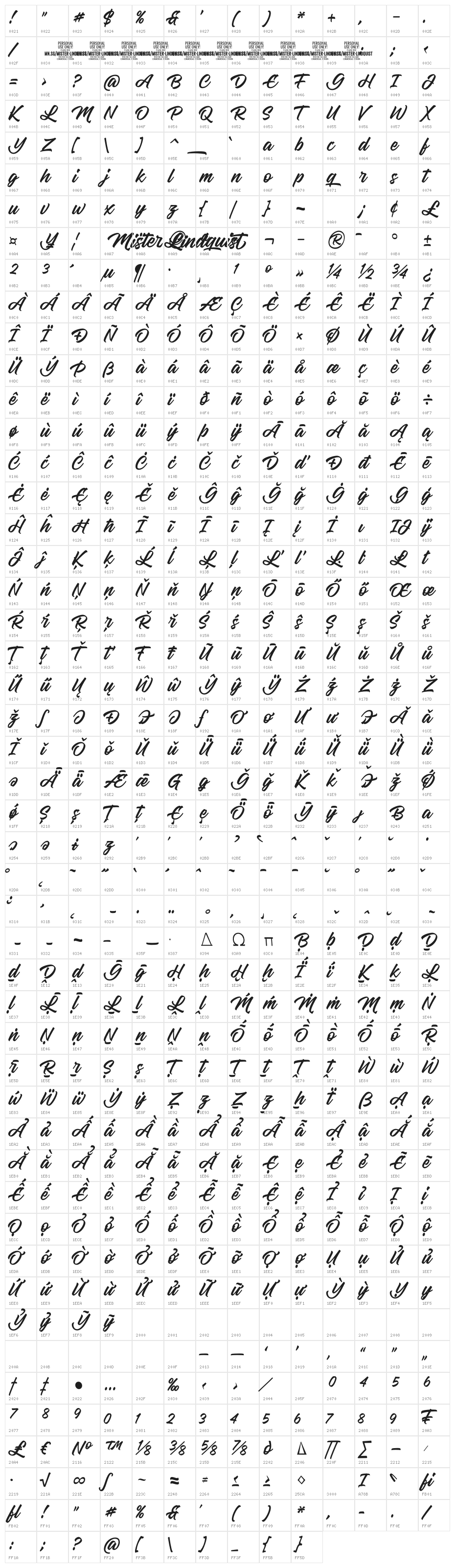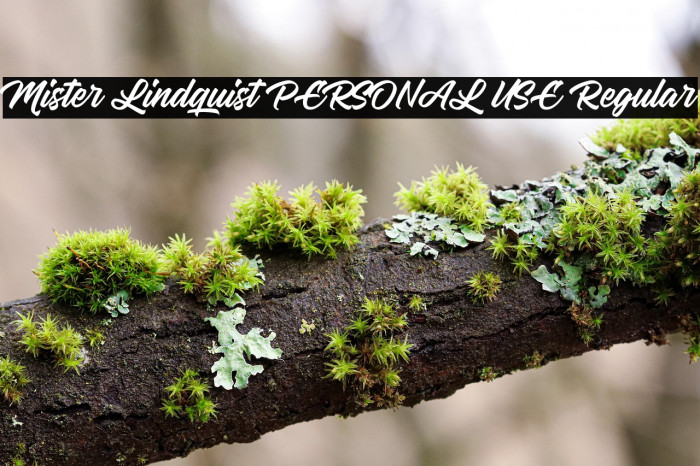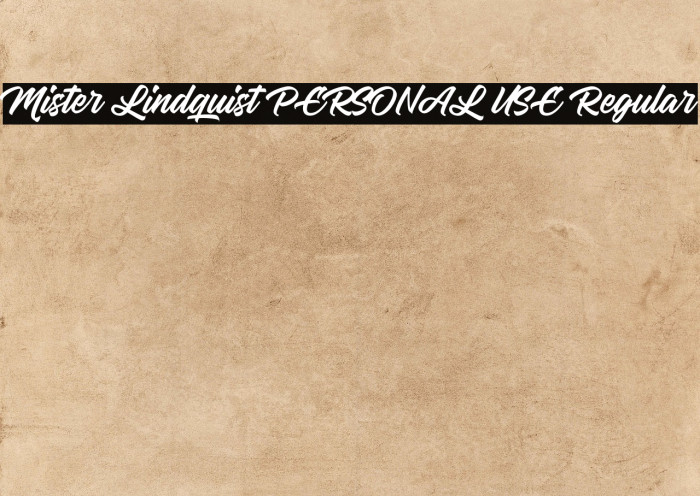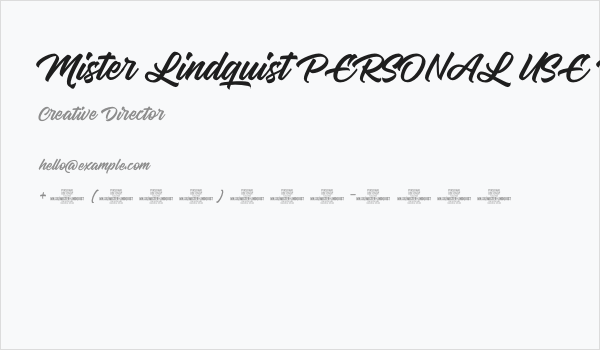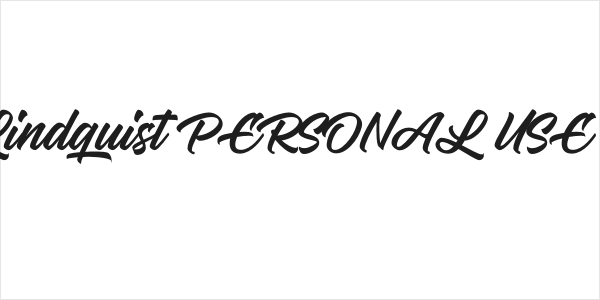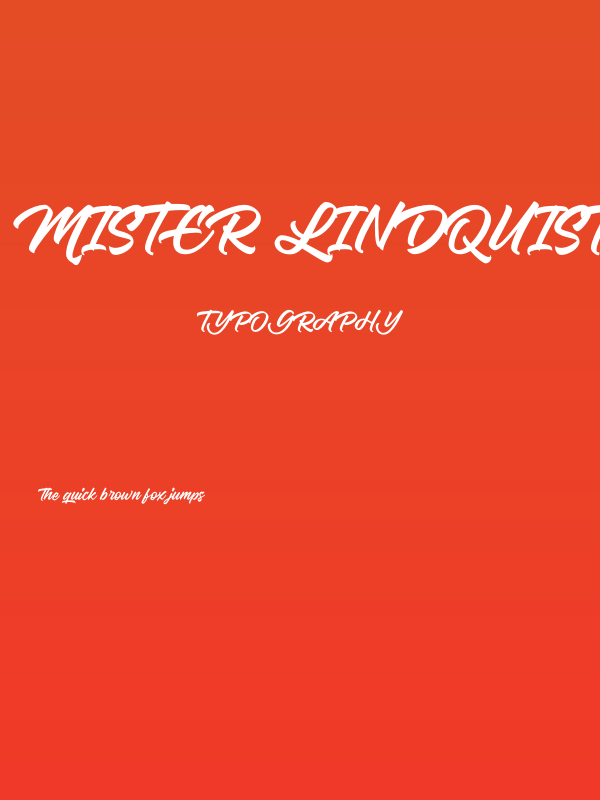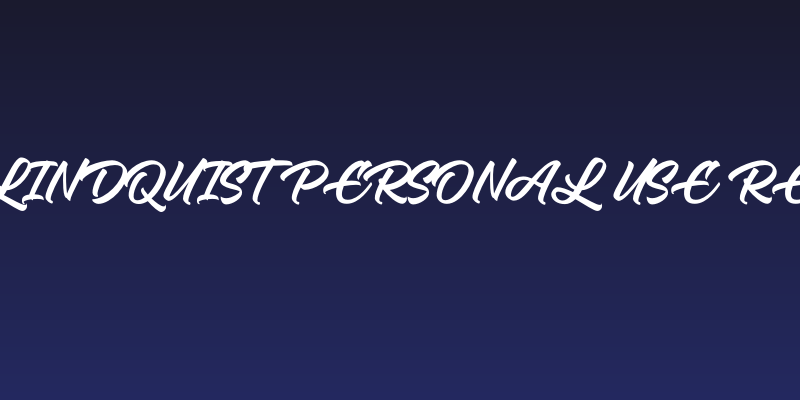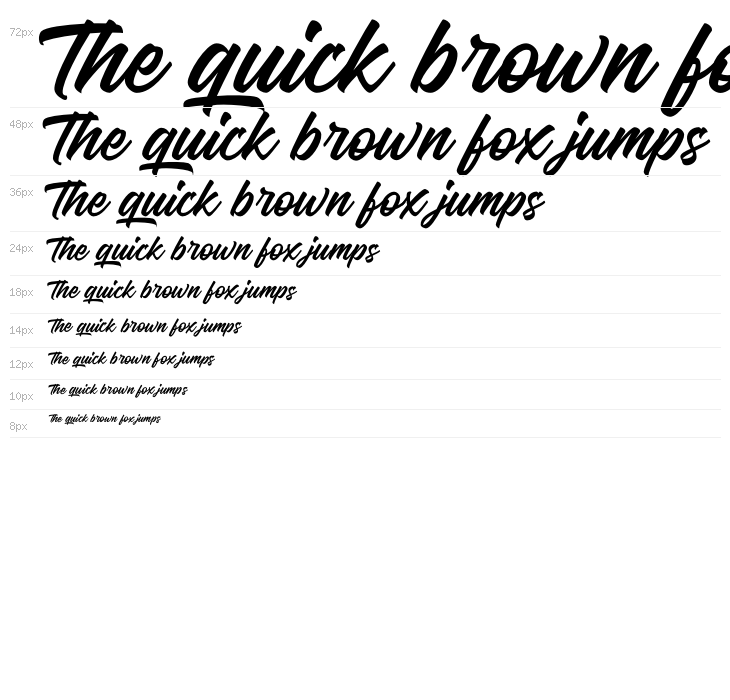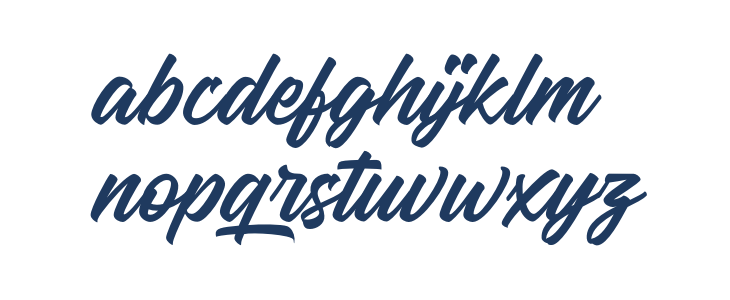
Mister Lindquist PERSONAL USE Regular Font
Mister Lindquist PERSONAL USE Regular Description
This font features a bold, cursive style with a smooth, flowing appearance. The letters are connected, creating a seamless script that is both elegant and dynamic. The uppercase letters are slightly larger and more pronounced, while the lowercase letters maintain a consistent height, adding to the overall fluidity. The font includes a full set of numerals and a variety of special characters, each maintaining the same cursive style. The strokes are thick and consistent, providing a strong visual impact.